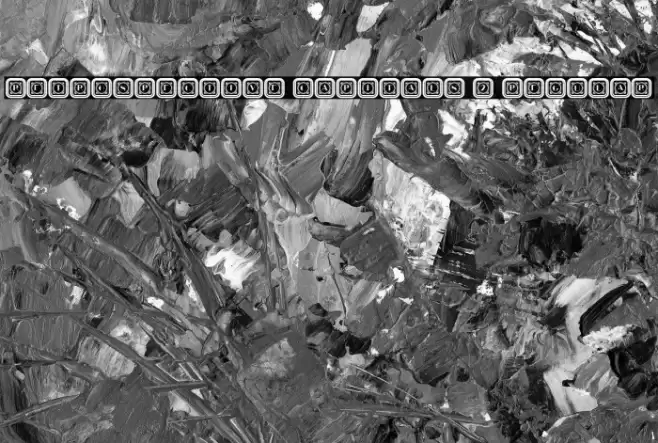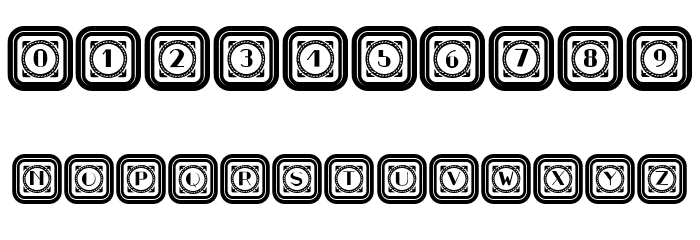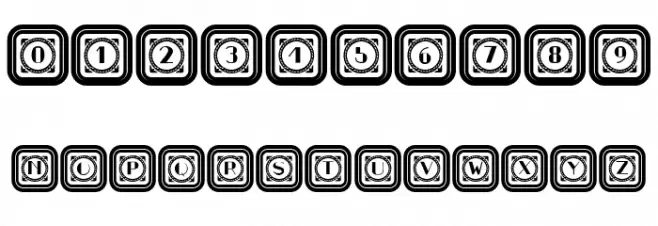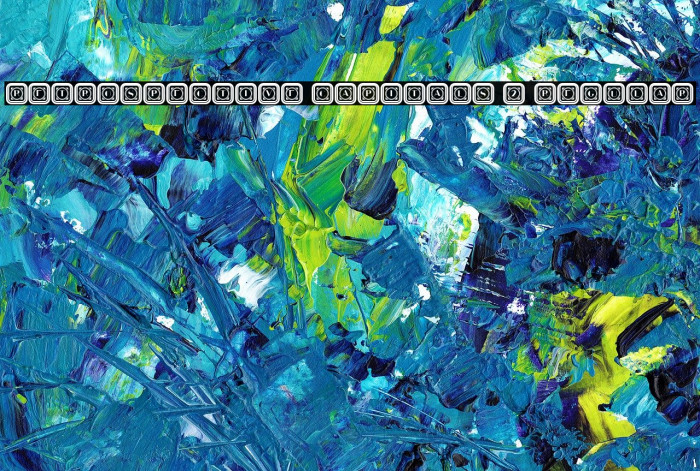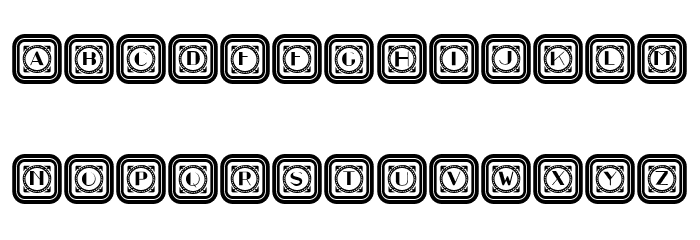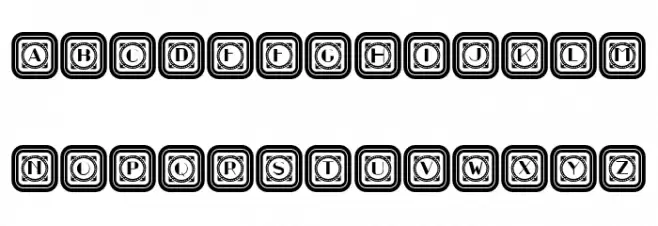
Retrospective Capitals 2 Regular Font
Retrospective Capitals 2 Regular Description
This font features a bold, decorative style with each character enclosed in a square frame, giving it a distinctive, retro appearance. The characters are uppercase and numerals, each with a thick, double-lined border that enhances the vintage aesthetic. The inner part of each letter is filled with a solid color, creating a strong contrast against the outlined border. The overall design is reminiscent of typewriter keys or vintage signage, making it ideal for projects that require a nostalgic or playful touch. The uniformity of the square frames ensures consistency across all characters, while the boldness of the letters ensures readability even at smaller sizes.
A bold, decorative font with characters enclosed in square frames, offering a retro aesthetic from Uncategorized fonts.
- Proposed Projects: Ideal for vintage-themed designs, posters, signage, and branding projects that require a nostalgic touch.
- Overall Style: Vintage